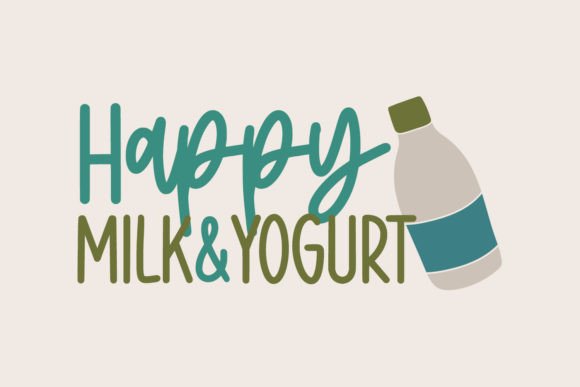
Sunday Flicker Font
Sunday Flicker is a fun and friendly handwritten display font. Whimsical and a little bit quirky, this font will brighten up each of your designs.